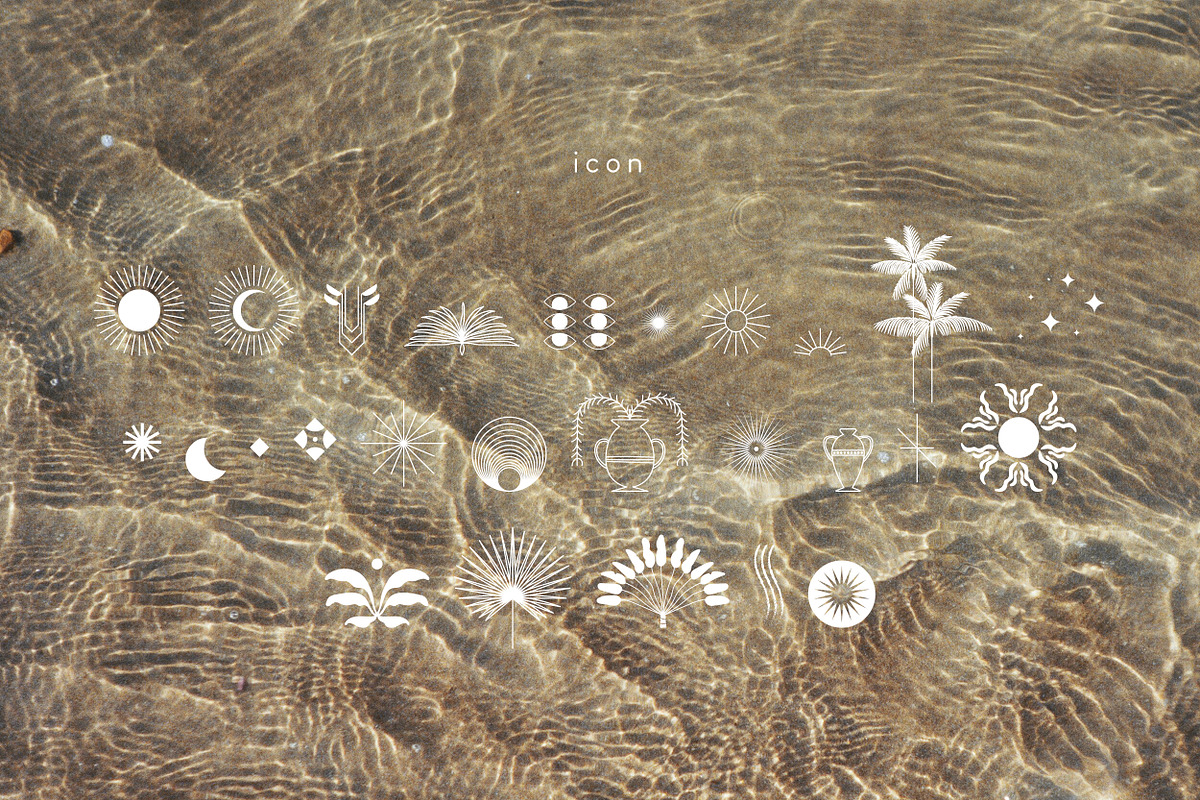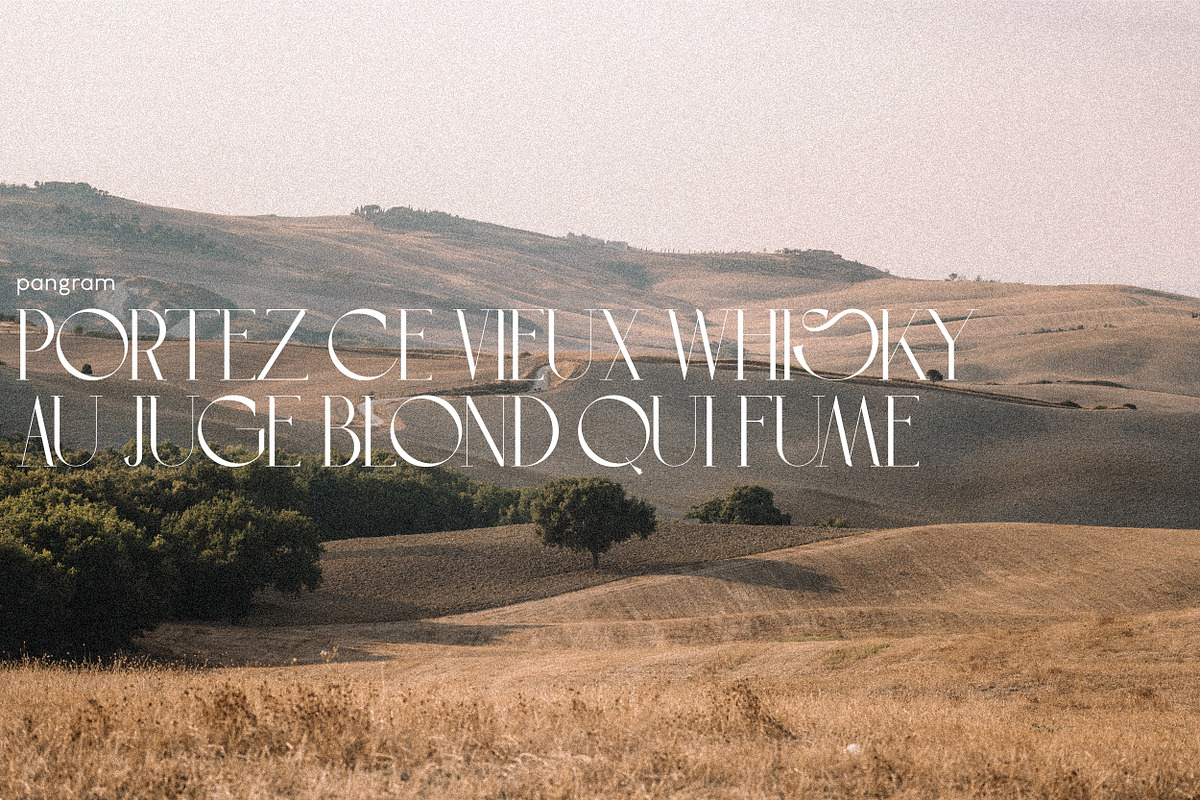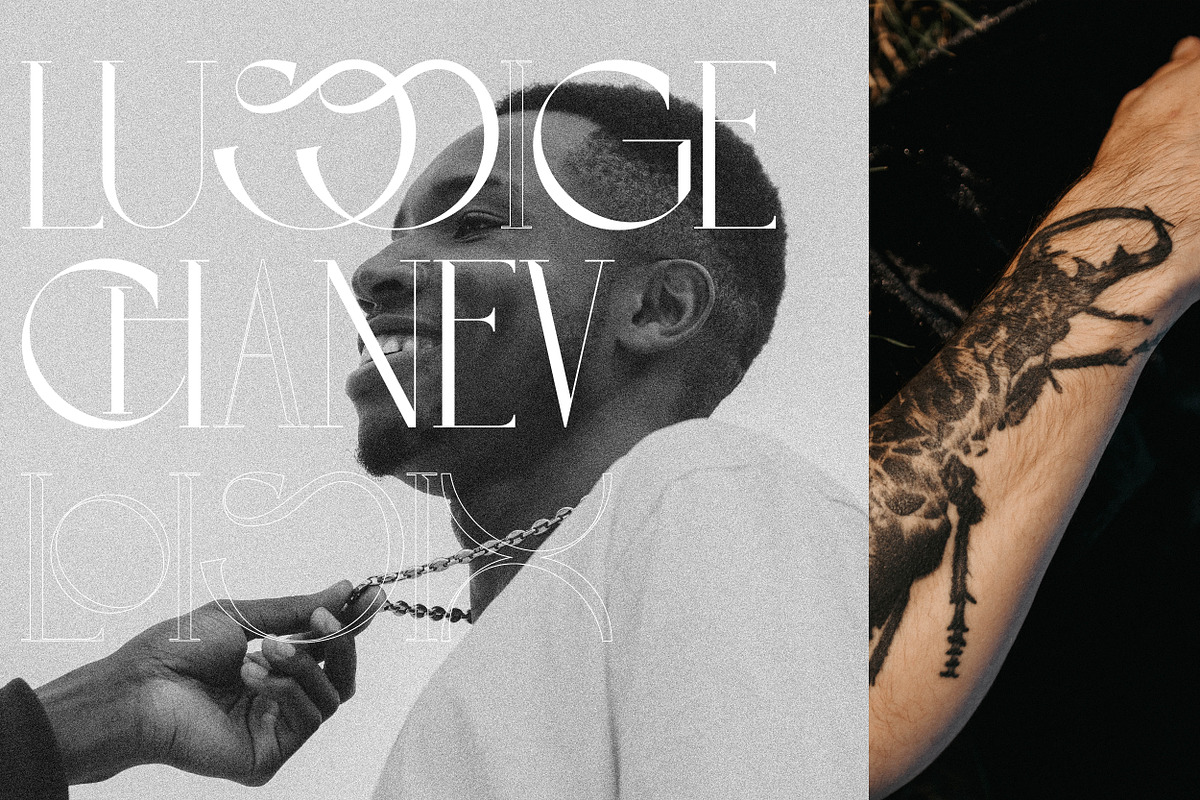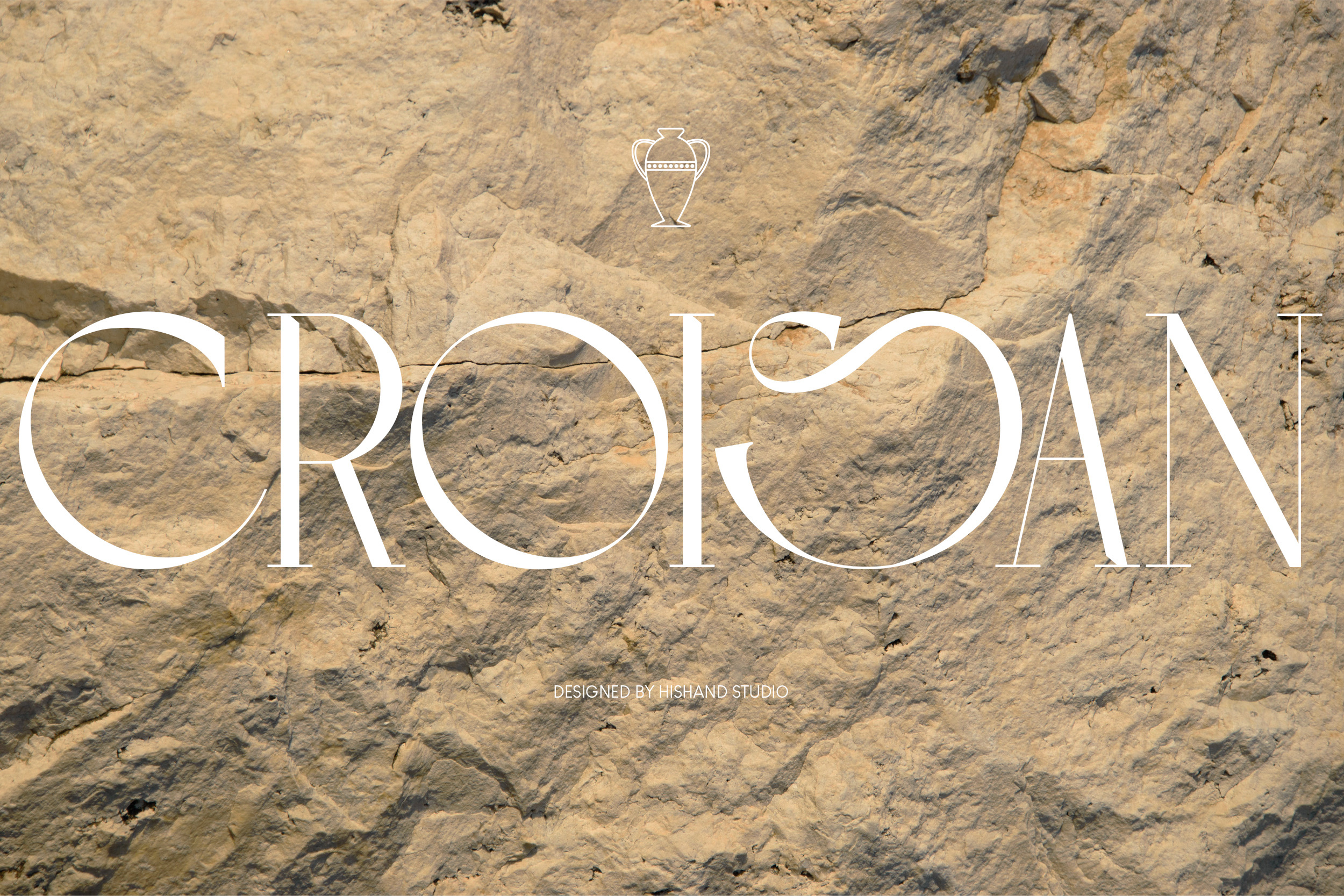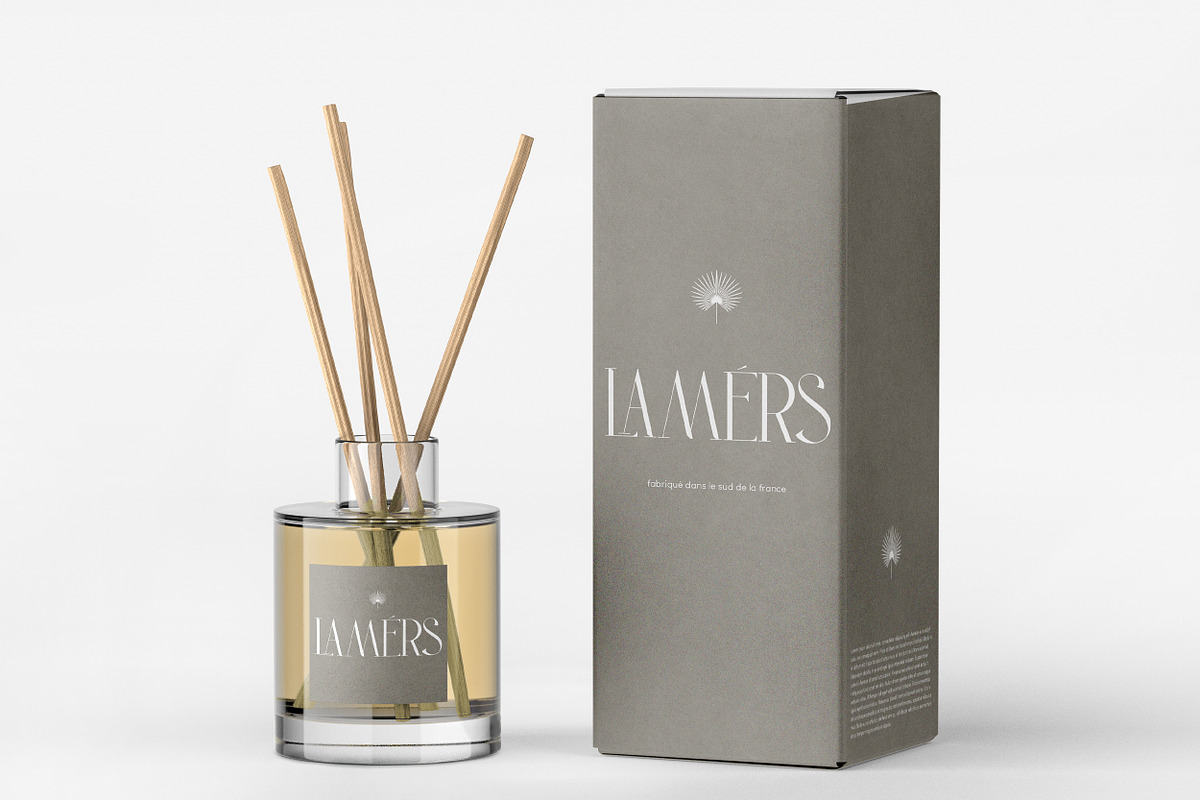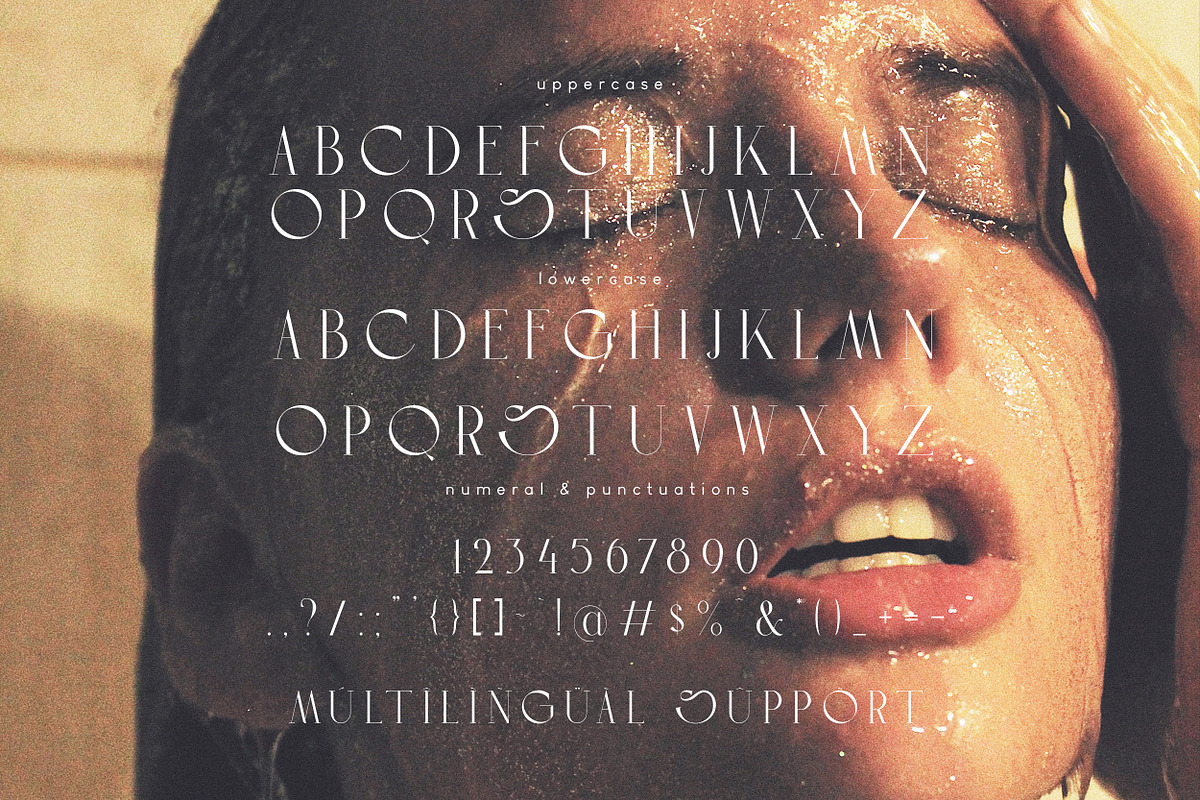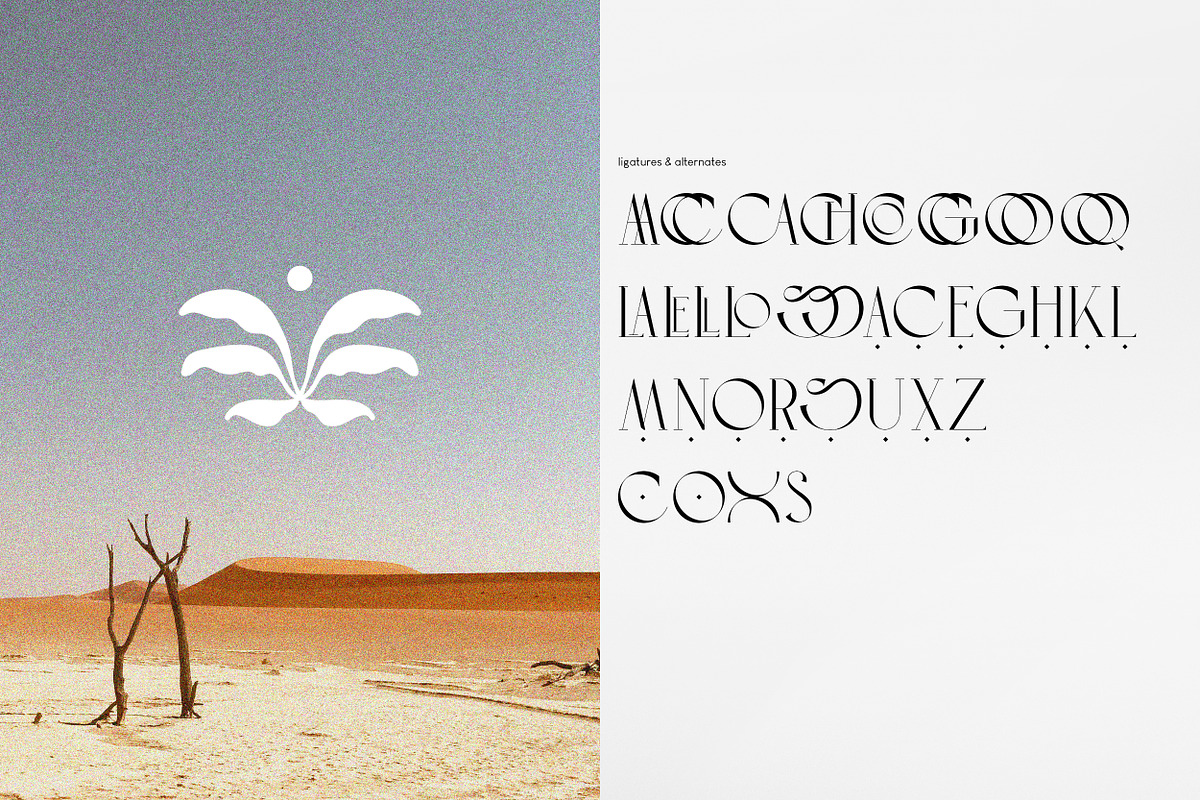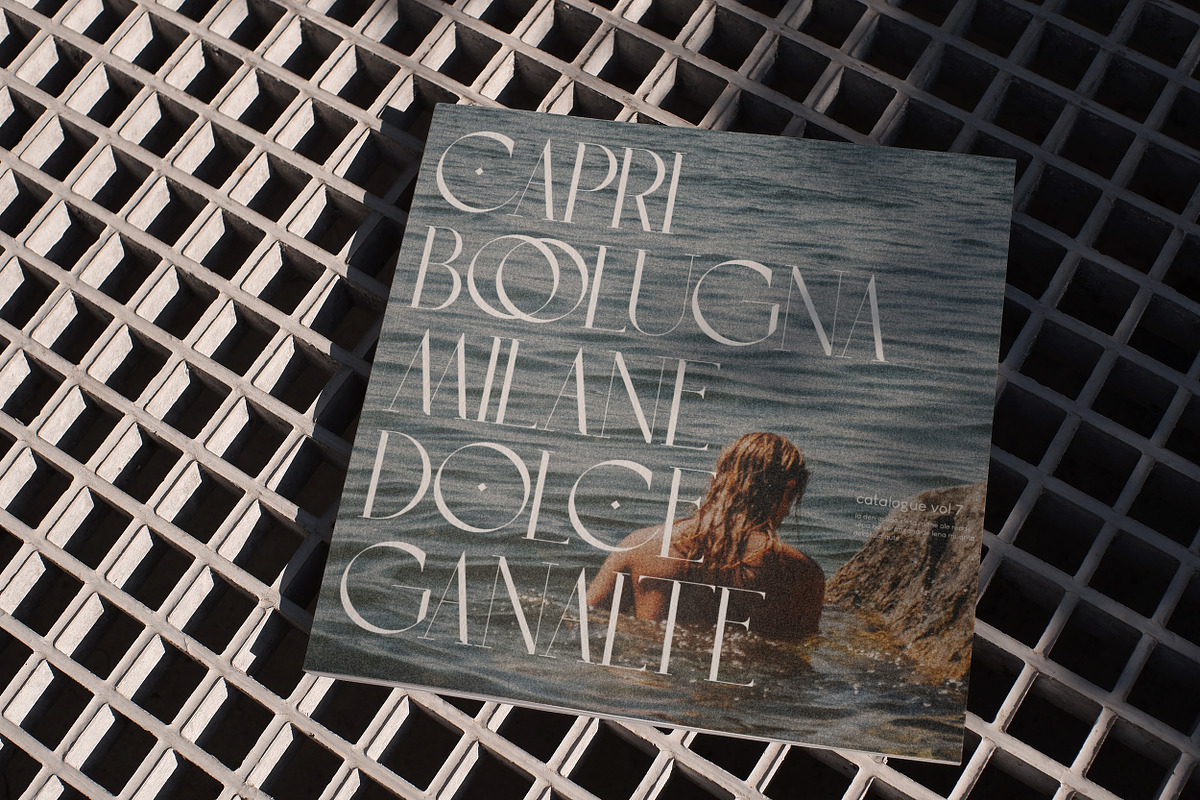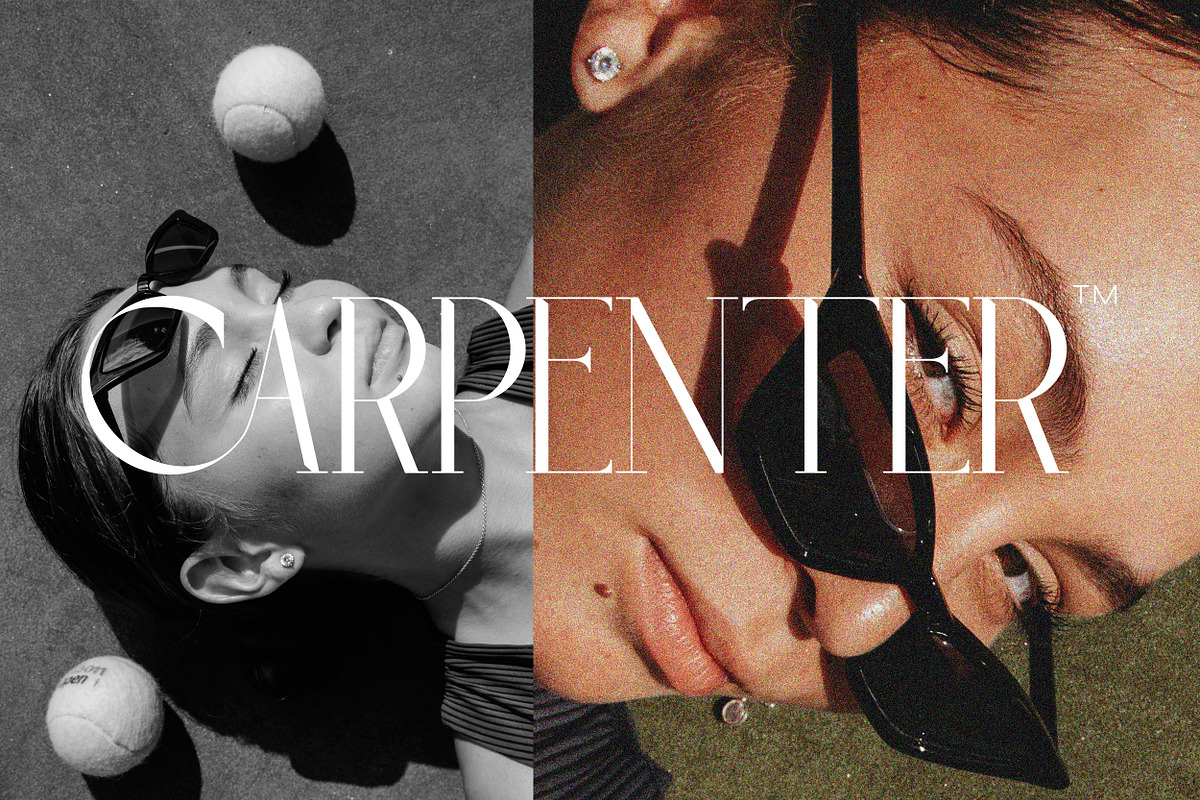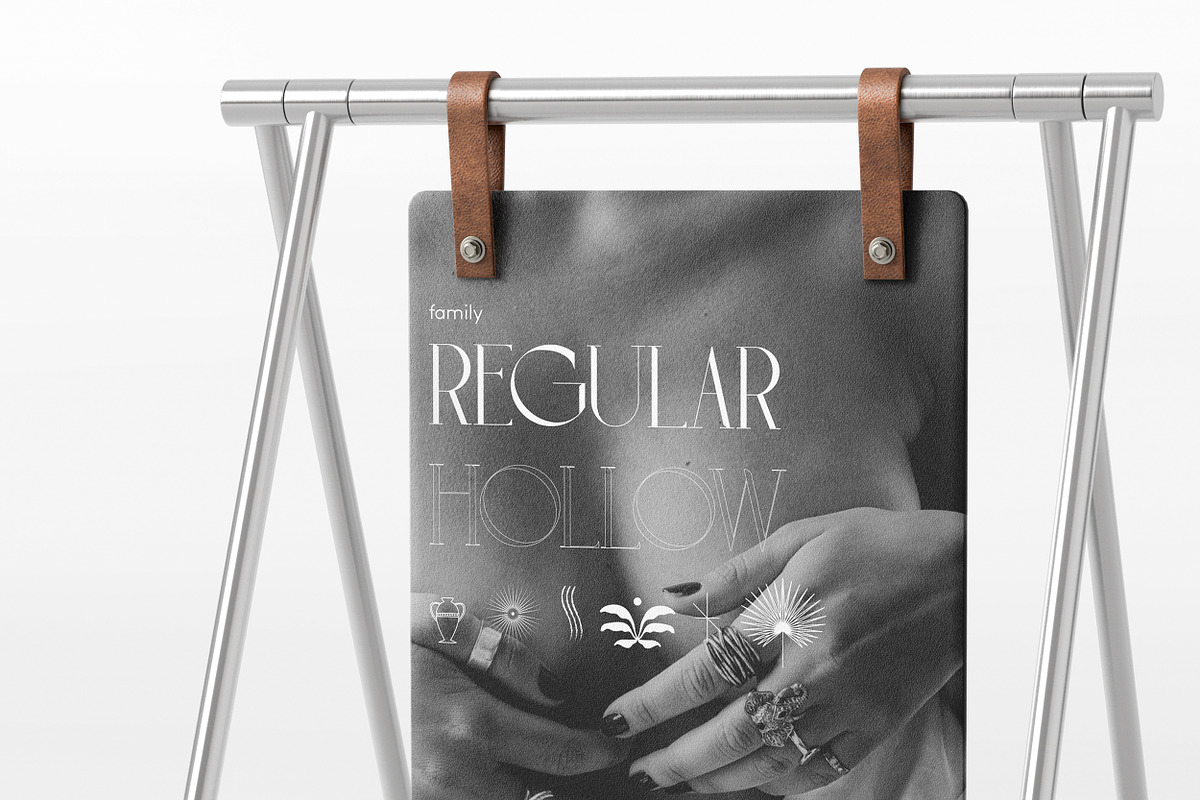
CROISAN Elegant Font
The Croisan serif font stands out for its delicate and slender lettering, making it an ideal choice for conveying a sense of subtle luxury and elegant. Perfect logo, branding, invitations, stationery, wedding designs, social media posts, and much more. Complete with
- alternates
- regular
- hollow
- icon
- kerning
- multilingual support